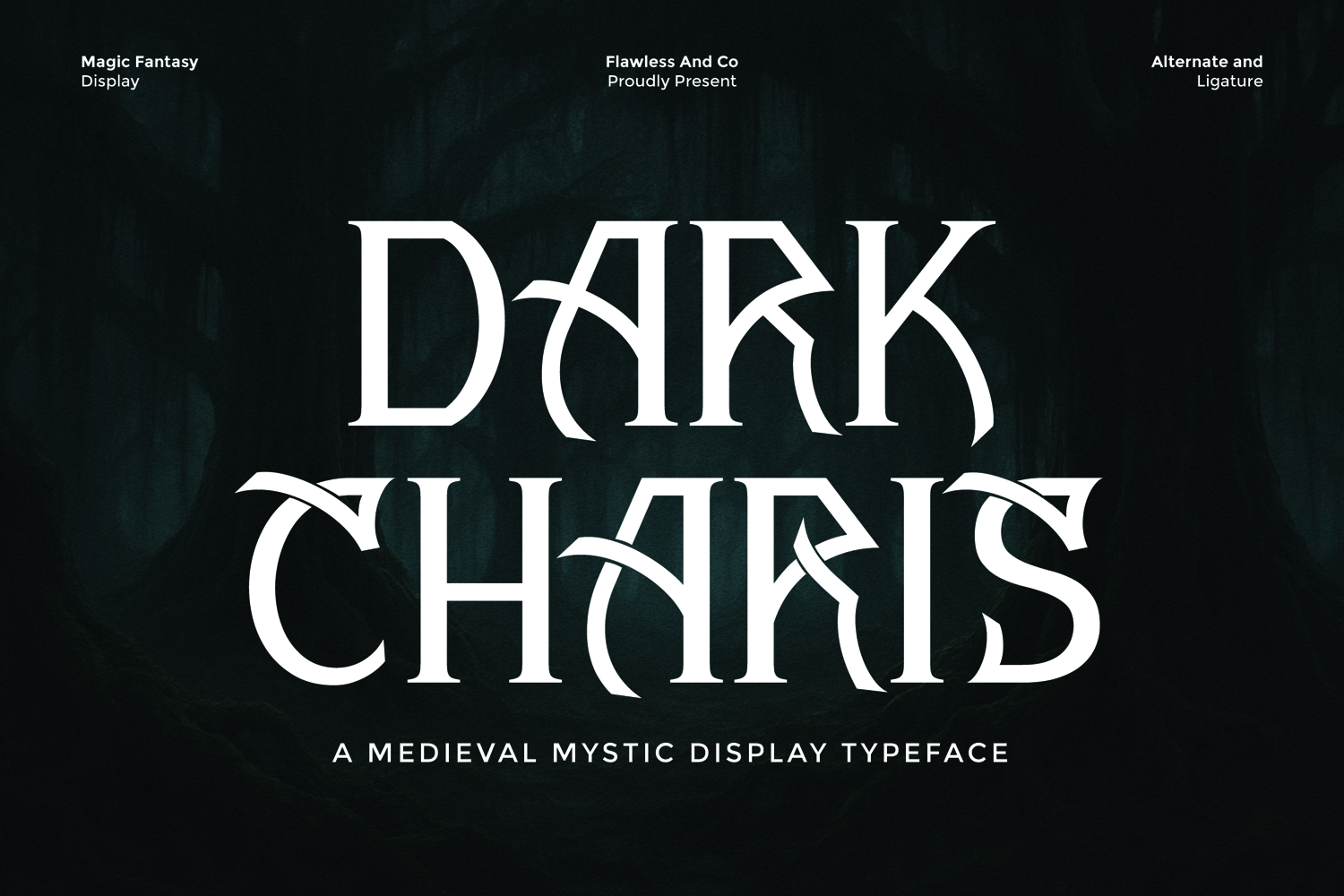
Darkcharis
DARK CHARIS
Dark Charis – A Medieval Mystic Display Typeface
Dark Charis is a bold fantasy display typeface that blends medieval mysticism with a modern creative touch. With its sharp curves, intricate ligatures, and enchanting design, this font instantly brings a sense of magic, mystery, and elegance to your projects. Perfect for fantasy book covers, game titles, movie posters, logos, or branding that requires a strong and mystical presence, Dark Charis creates a dramatic visual impact. Its alternate characters and unique stylistic features make it versatile for both professional designers and creative enthusiasts.
• Alternates & Ligatures
Who Should Use Dark Charis?
Dark Charis is made for creatives, designers, and brands who want to bring a strong, fantasy-inspired aesthetic to their projects. It’s perfect for game developers, book cover designers, event organizers, and anyone seeking a bold, medieval-style typeface that adds drama and character to their visual identity.
A Must-Have Font for Brand and Logo Creators and Designers
Dark Charis is an essential typeface for brand builders and logo creators who want to stand out with bold, dramatic, and fantasy-inspired typography. Its unique medieval character makes it perfect for designers seeking to combine strength, style, and storytelling in every project
Why Choose Dark Charis for Brand and Logo Projects?
Dark Charis offers a bold and distinctive medieval-inspired style that instantly captures attention and sets your brand apart. Its dramatic strokes and unique letterforms make it ideal for creating unforgettable logos, striking branding, and impactful design projects. Whether for modern businesses, fantasy-themed brands, or creative ventures, Dark Charis brings strength, elegance, and originality to your visual identity.
Suitable For:
• Fantasy and medieval themed branding projects
• Logo design for gaming, esports, and creative industries
• Book covers, posters, and movie titles with a gothic or dark style
• Decorative packaging and product identity with a vintage feel
• Social media graphics and promotional content with dramatic typography
• Tattoo design, apparel, and merchandise needing bold fantasy lettering